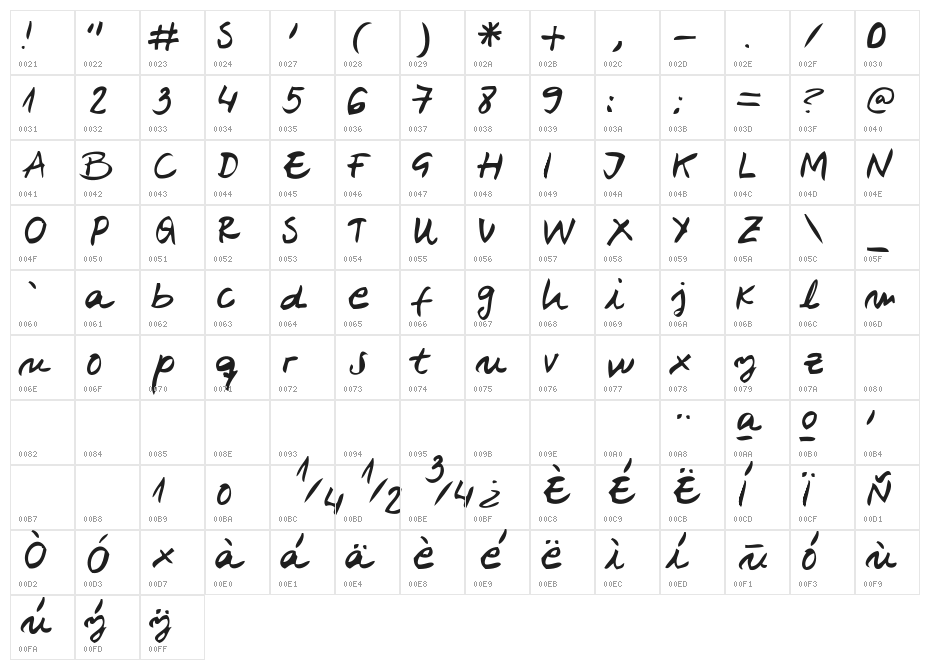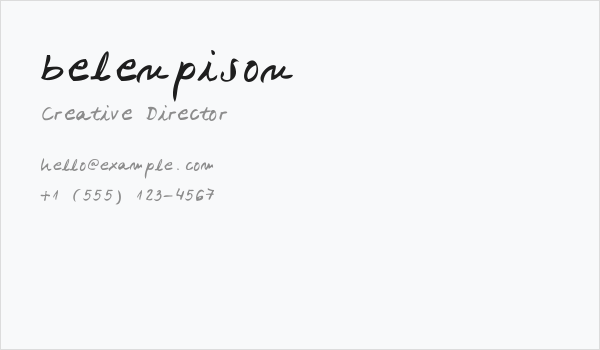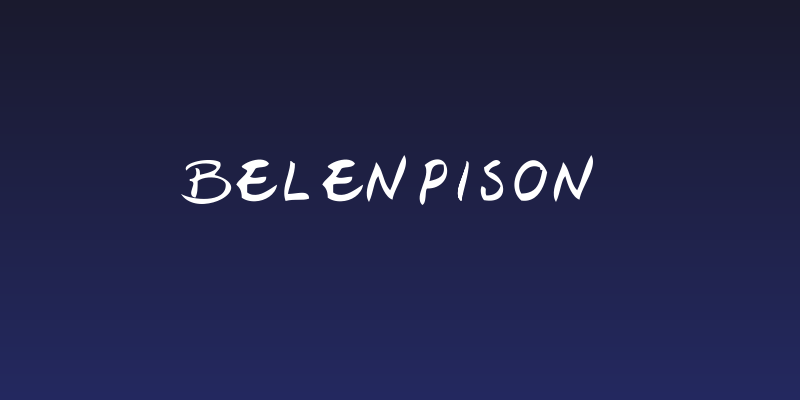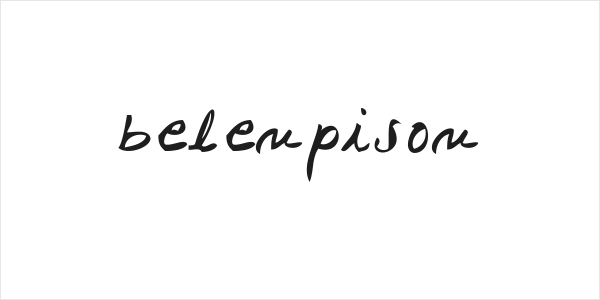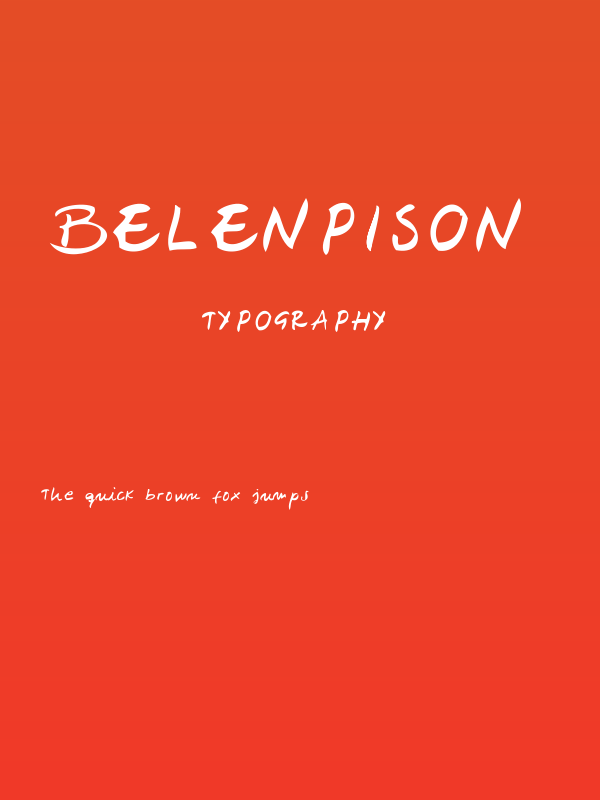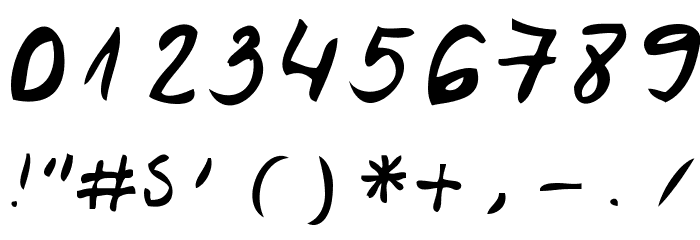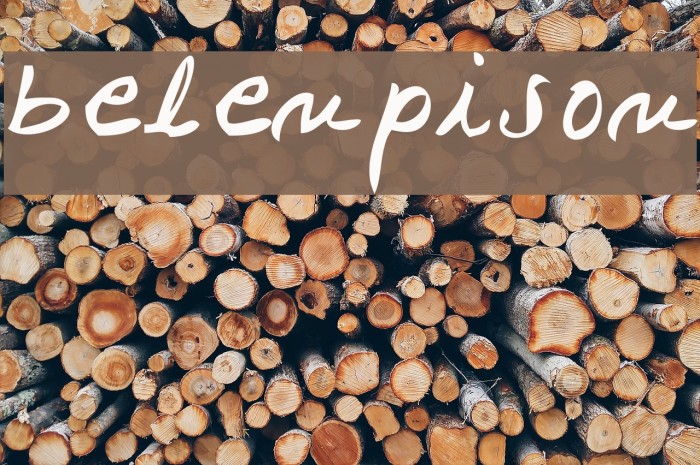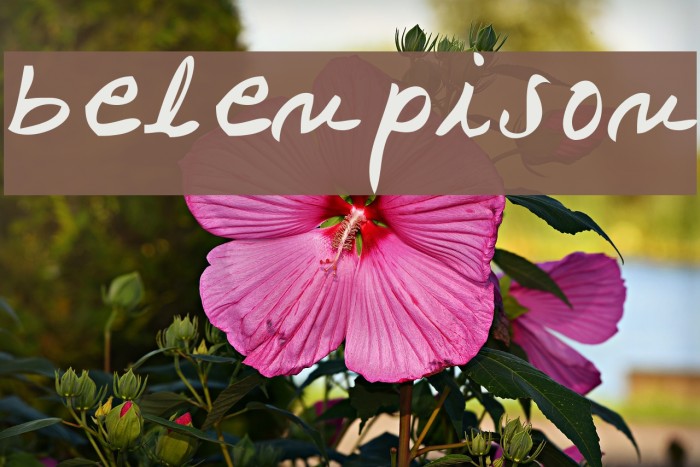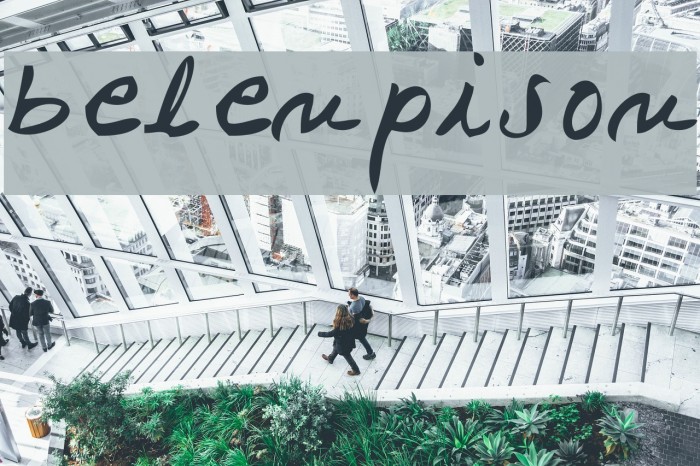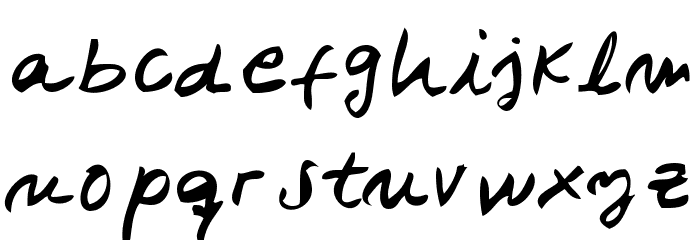
belenpison Font
belenpison Description
This font features a dynamic and expressive handwritten style, characterized by fluid and slightly irregular strokes that convey a sense of movement and personality. The uppercase letters are bold and slightly slanted, while the lowercase letters maintain a consistent flow with a casual elegance. Numbers and special characters follow the same lively aesthetic, making the font versatile for various creative applications. The overall appearance is both approachable and stylish, suitable for projects that require a personal touch.
| Overall Style | Casual, Expressive |
| Proposed Projects | Ideal for greeting cards, invitations, personal branding, and creative social media graphics. |